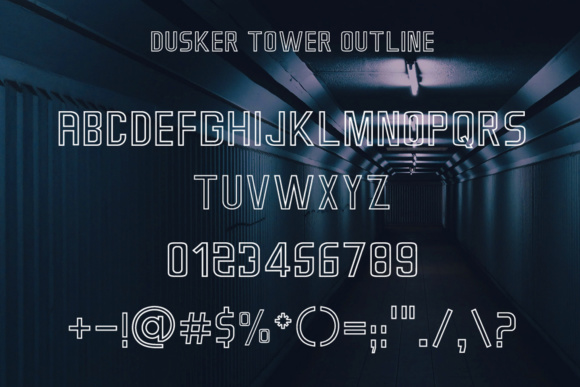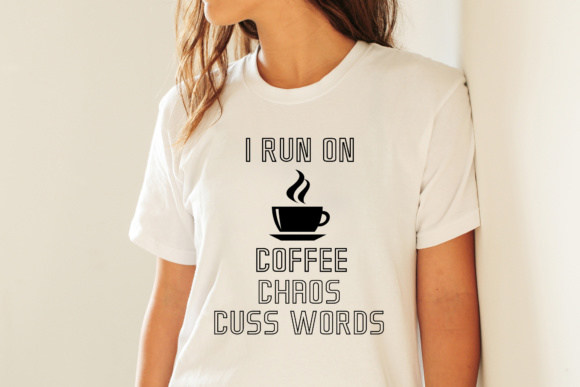
Enter Dusker Tower Outline Font, a tall, outlined sans serif font designed to shine in all sizes. Available in regular and bold styles, this versatile font is perfect for creating eye-catching headings, logos, and even body text. What sets Dusker Tower apart is its unique ability to adapt to any design, making it a valuable asset for designers of all levels.
Whether you’re a seasoned pro or just starting out, incorporating the Dusker Tower Outline Font into your design workflow can elevate your work to new heights. Its clean lines, modern aesthetic, and exceptional legibility make it an ideal choice for any project, from digital displays to print materials.
Dusker Tower Outline Font Key Features
- Unique Characteristics: The Dusker Tower Outline Font features a distinctive outline style, with bold lines and geometric shapes that give it a unique and modern appearance.
Dusker Tower Outline Font Review
I’ve had the chance to work with the Dusker Tower Outline Font, and overall, I’m quite impressed. Here’s my honest review.
- The font’s outline style gives it a unique and modern look, making it perfect for futuristic or sci-fi designs.
- The bold and chunky design elements hold up well at larger sizes, ideal for headings or titles.
- The font’s versatility allows it to work well in a variety of contexts, from digital displays to print materials.
- The font’s outline style can sometimes make it difficult to read at smaller sizes, especially in situations where the text is dense or crowded.
- The font’s overall aesthetic may not be suitable for more traditional or conservative designs, where a more subtle approach is preferred.
- The font’s limited character set may require additional formatting or workarounds in certain situations.
The Dusker Tower Outline Font is a solid choice for designers looking to add a unique touch to their projects. While it may have some limitations, its strengths make it well-suited for a variety of applications. With proper use and consideration of its limitations, this font can be a valuable addition to any designer’s toolkit.
Dusker Tower Outline Font: A Practical Application Guide
Getting Started with Dusker Tower Outline Font
Tips for Getting the Most Out of Dusker Tower Outline Font
To maximize the effectiveness of Dusker Tower Outline Font, use it for titles, headings, and other design elements that require a bold and striking visual impact. Experiment with different font sizes and colors to create a visually appealing design.
Common Use Cases for Dusker Tower Outline Font
Dusker Tower Outline Font is commonly used for:
- Designing posters and flyers
- Creating logos and branding materials
- Developing digital marketing campaigns